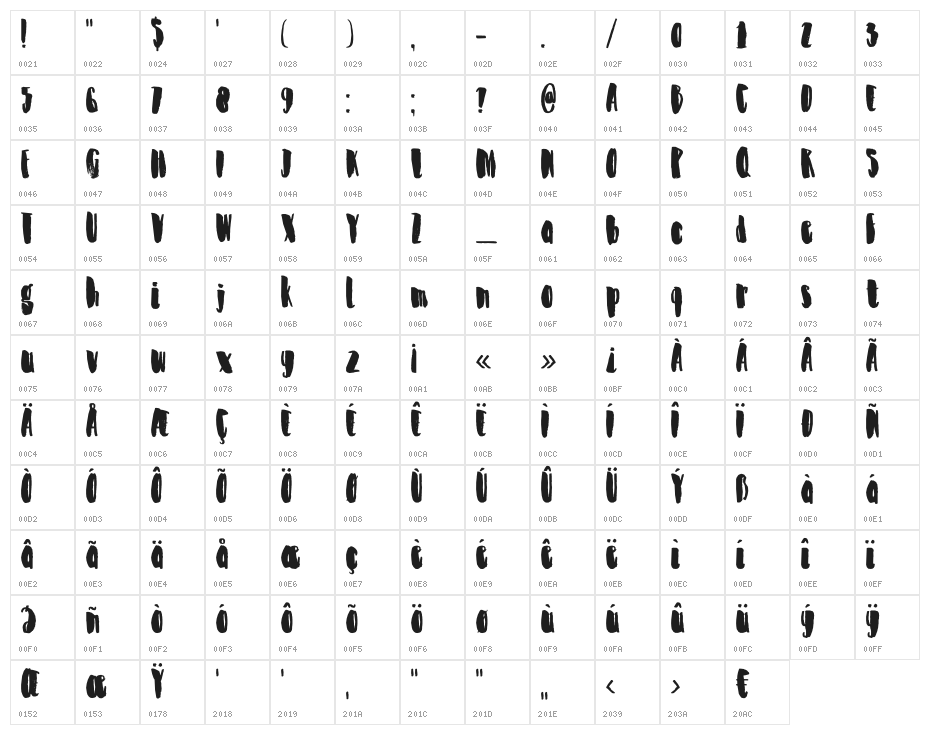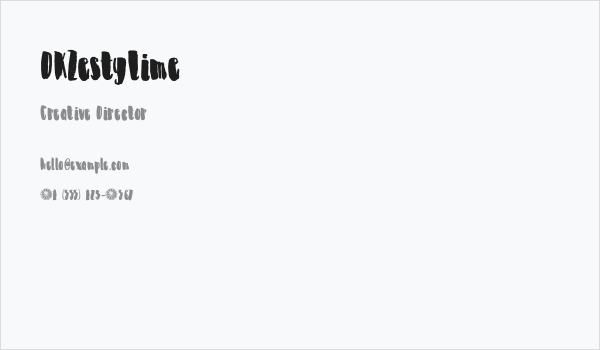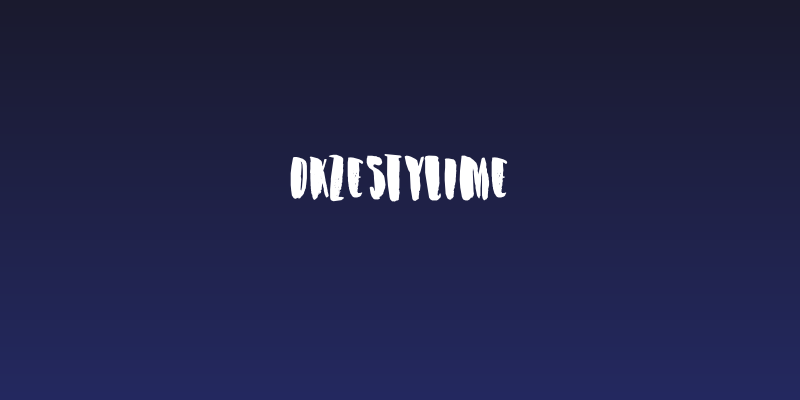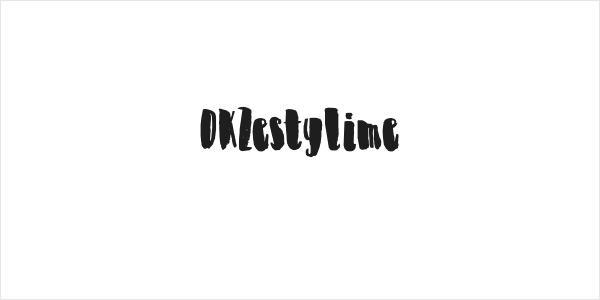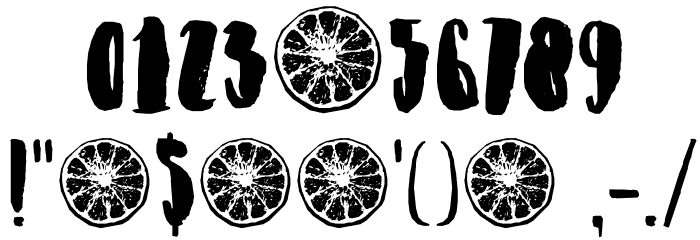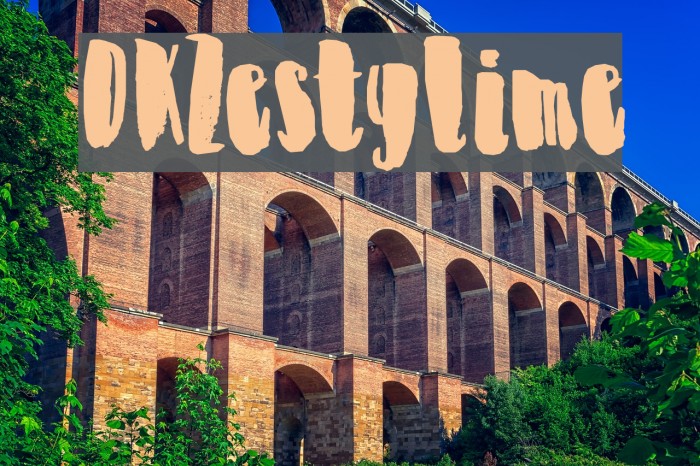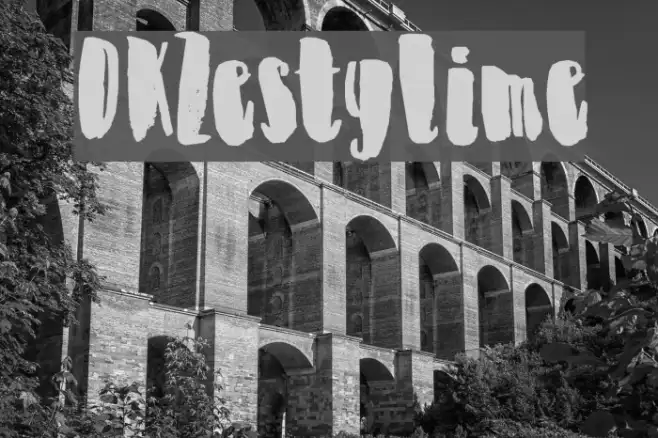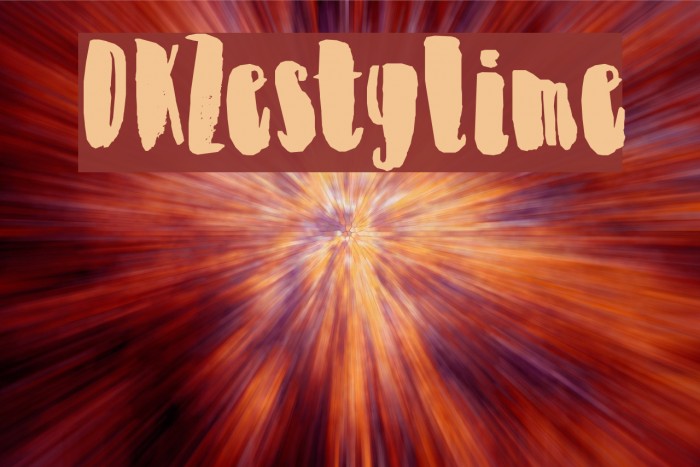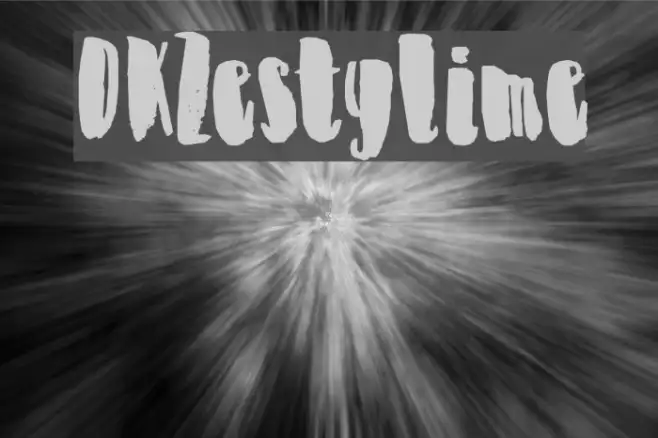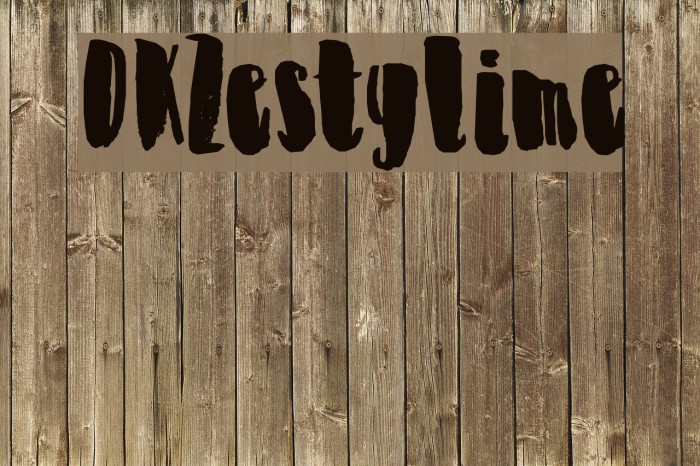
DKZestyLime Font
DKZestyLime Description
This font features a bold and expressive style with a hand-painted appearance. The characters are irregular and organic, giving a sense of movement and energy. The uppercase and lowercase letters maintain a consistent boldness, with some letters exhibiting unique, artistic flair. The numbers and special characters continue this theme, with some elements incorporating decorative motifs, such as citrus slices, adding a playful touch. The overall design is striking and impactful, making it suitable for creative and eye-catching projects.
| Overall Style | Artistic, Playful |
| Proposed Projects | Ideal for posters, branding, packaging, and any project requiring a bold, artistic touch. |